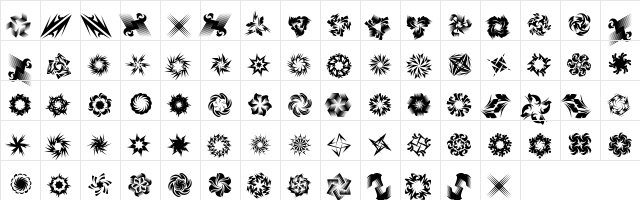
Whirligig Medium
| Foundry | C) Emigre Graphics, Designed by Zuzana Licko |
Design Context for Whirligig Typeface
Whirligig is a composed and adaptable typeface that performs quietly and consistently across a wide range of design contexts.